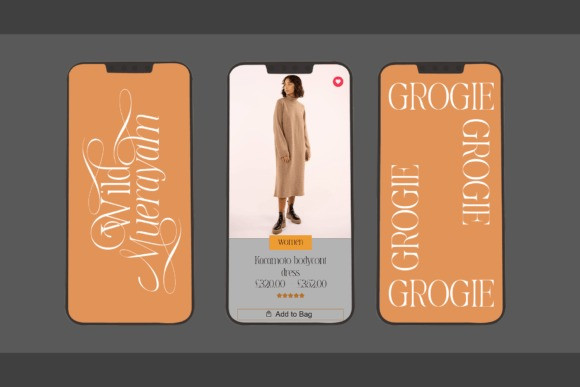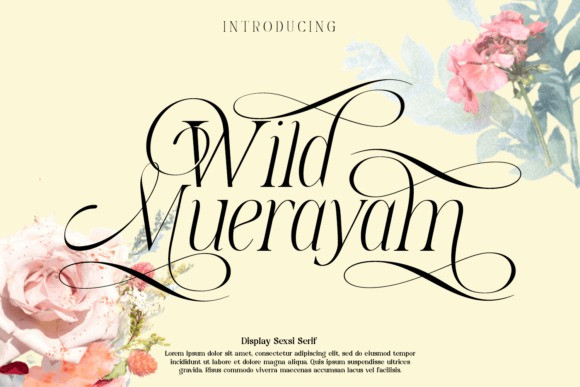
Wild Muerayam Font
Wild Muerayam Font is an elegant, modern, functional and unique display font featuring a calm text and an expressive display. It is perfect for books, periodicals, posters, or magazine covers. The scope is not limited to the printing industry because Wild Muerayam will look aesthetically pleasing wherever it is used.